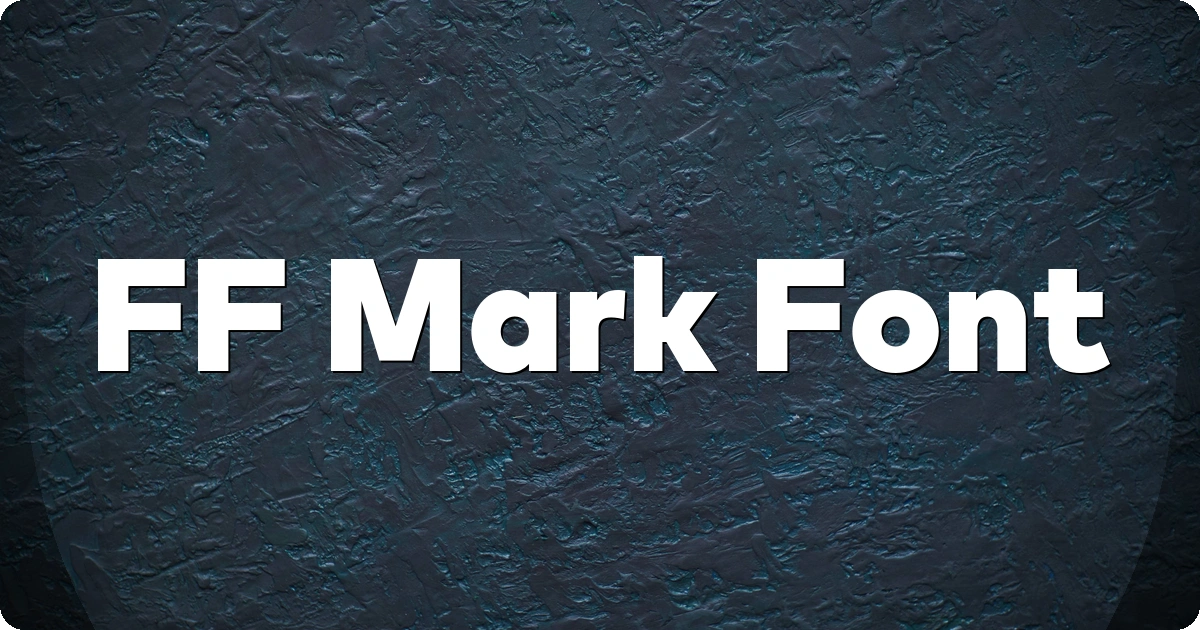
Let us now introduce FF Mark Font, a modern geometric sans serif typeface. It is available in 183 different styles and 10 different weights, including regular, thin, hairline, light, book, italic, bold, medium, and semibold. It was created with the assistance of Erik Spiekermann by two German-type designers, Mr. Hannes von Döhren and Mr. Christoph Koeberlin. FontFont foundry, a well-known foundry, released it in 2013.
The designers want to create a typeface that interprets the new classic geometric sans serifs from Germany. When compared to other typefaces such as futura font, the typeface has a large X-height, making it ideal for text. Its alternative characters, texture ligatures, fractions, stylistic alternates, and super and subscript figures provide modern typographic guidance.
View of FF Mark Font
FF mark font is characterized by tabular figures, figure set alternatives, and proportional widths, making it ideal for logos and brands. This Font is a versatile typeface that can be used in a variety of design projects. Here you can see the alphabet structure of this typeface.
This font family has simple characters that are easy to understand even from a distance. It excludes excellent legibility on both small and large texts. As a result, you should use this typeface for printing projects, quotes, headlines, titles, long and short paragraphs, general reports, presentations, product titling, and many other things.
It is ideal for many interesting designs due to its large styles and geometric texturing, such as the font includes simple characters that can be used for ambitious headings, ebook covers, brand designs, cloth printing, official cards, precise emblems, and so on.
It can also be used in advertising, movie trailers, product packaging, logos, banners, brochure layouts, templates, editorial and publishing, video games, development, app design, display screen style, music and nightlife, social media posts, PowerPoint presentations, signage, and emblems.
Who created the FF Mark Font?
This exceptional sans serif typeface was created by two type designers, Mr. Hannes von Döhren and Mr. Christoph Koeberlin, with the assistance of Erik Spiekermann, and released in 1993 by the FontFont foundry.
What font is the most similar to the FF Mark Font?
There are many fonts that are similar to this typeface, such as Avenir Next Font, FF DIN Font, and Museo Sans Font, but the closest fonts are Sofia and Campton Font.
Where can we apply the FF Mark Font?
This typeface is ideal for web design, promotion, and publishing projects, as well as logos, book covers, large headlines, short and long paragraphs, and social media posts, among other things.